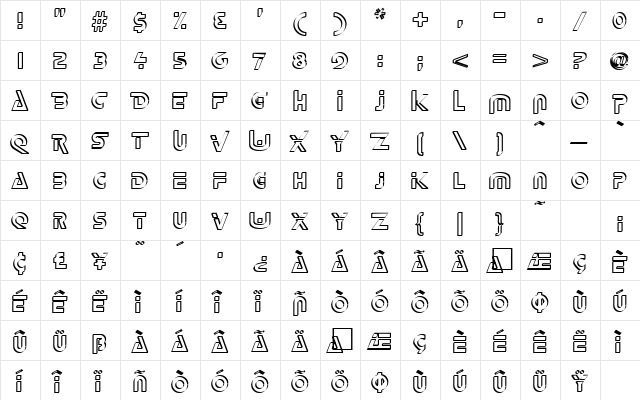
Delta Overlap Regular
Design Context for Delta Overlap Typeface
Delta Overlap is a composed and adaptable typeface that performs quietly and consistently across a wide range of design contexts.